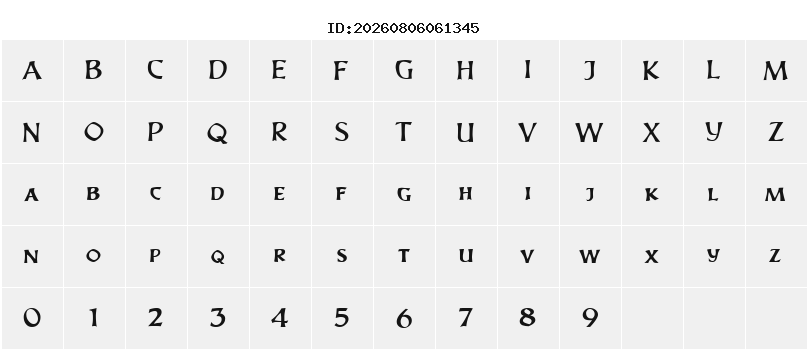
Ovalico 41 DB Preview
• Font Name: Ovalico 41 DB
• Full Font Name: Ovalico 41 DB
About Ovalico 41 DB.ttf
Ovalico 41 DB.ttf is a modern, elegant sans-serif font designed for ultimate readability and visual harmony. Perfect for branding, headlines, web design, and print materials.